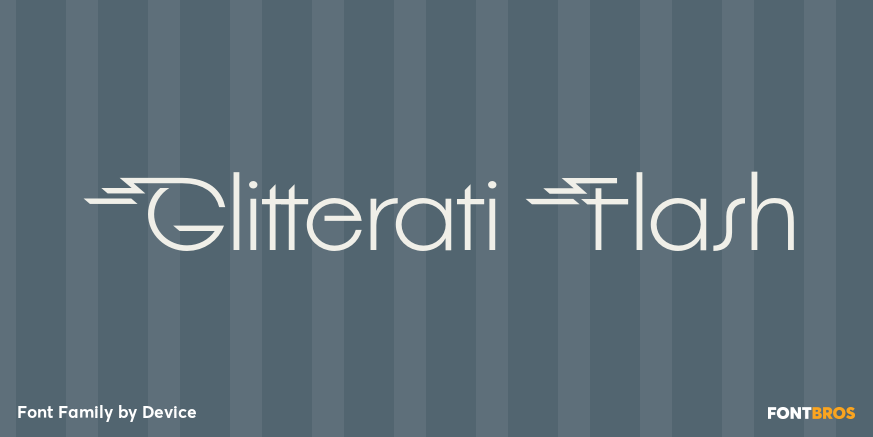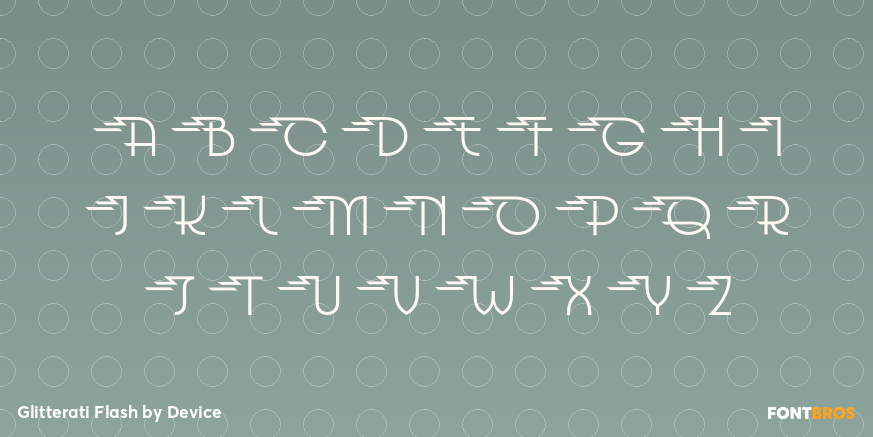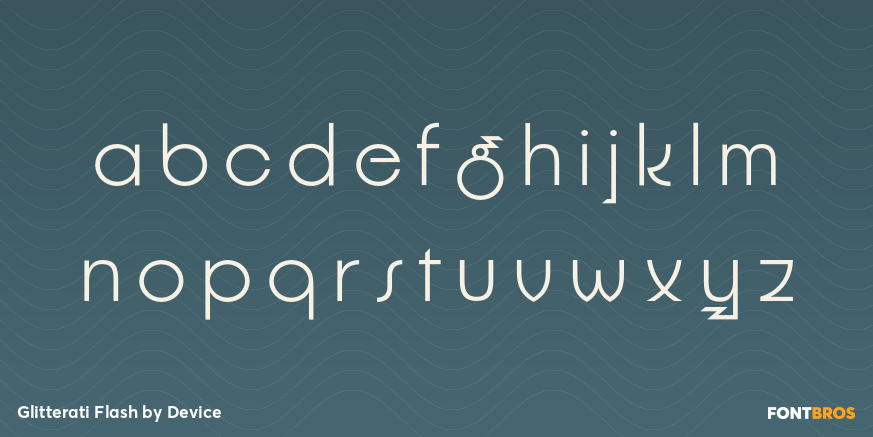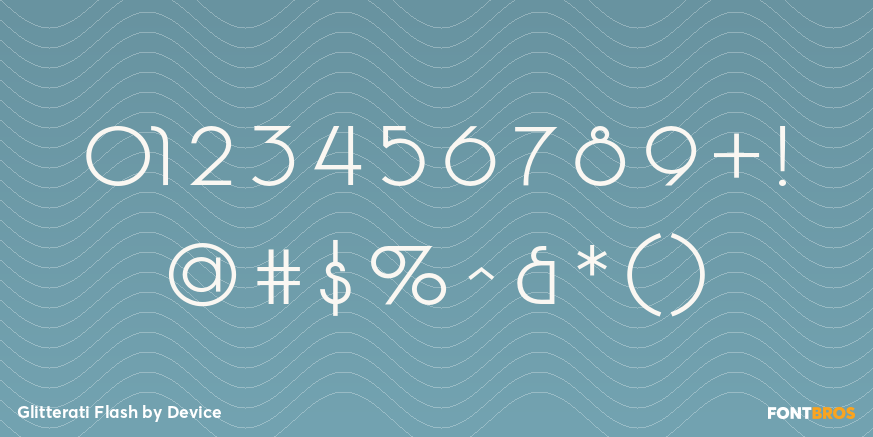
Glitterati Flash
Font Family by Device
Glitterati is Disko 2005. Flash Gordon meets Studio 54 and Reddy Kilowatt, all in one font! It contains alternative versions that enable customization of headlines and are intended to be freely mixed in one setting, too!